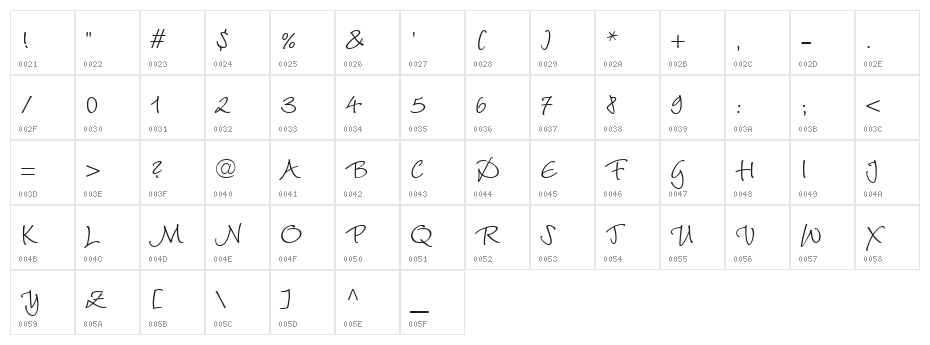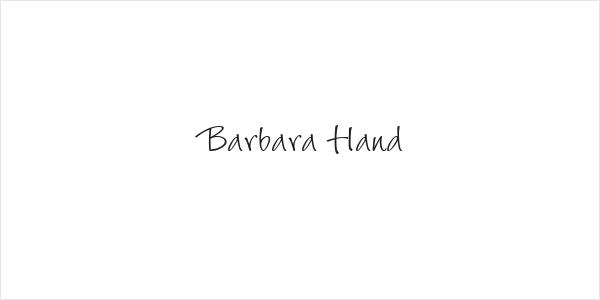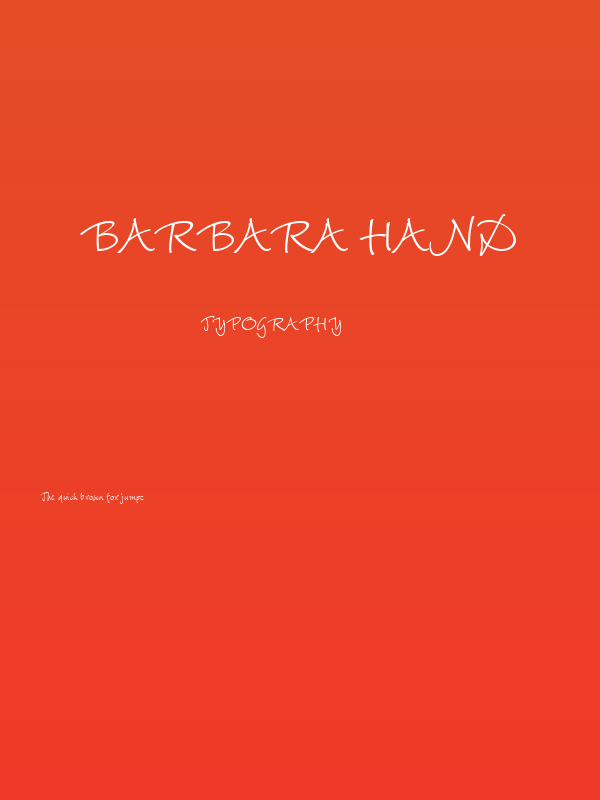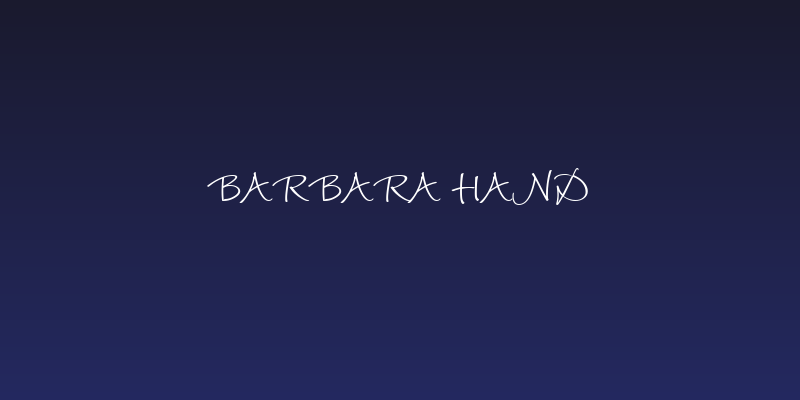
Barbara Hand Font
| Stile generale | Casual, Friendly |
| Caso d'uso | Headlines, Invitations, Personal notes |
| Progetti proposti | Ideal for greeting cards, personal letters, invitations, and creative projects that require a personal touch. |